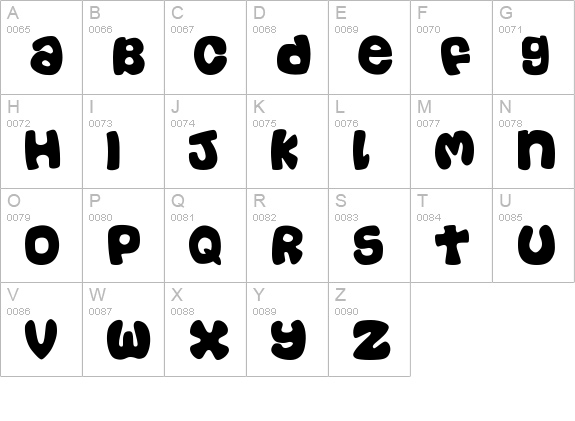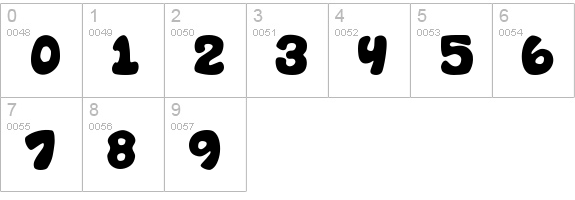
Casual Font Details
Casual font exudes a laid-back and friendly vibe, perfect for adding a touch of warmth and approachability to your designs. With its relaxed and effortless style, Casual font is the ideal choice for projects that require a casual and welcoming aesthetic. This versatile font can be used for a variety of creative purposes, from social media graphics to branding materials to invitations. The best part? Casual font is available for free download at FontsMarket.com, making it easily accessible to anyone looking to add a casual and friendly touch to their work. Whether you're a seasoned designer or just starting out, Casual font is a valuable addition to your font library. Download it today and see how this charming font can elevate your designs!